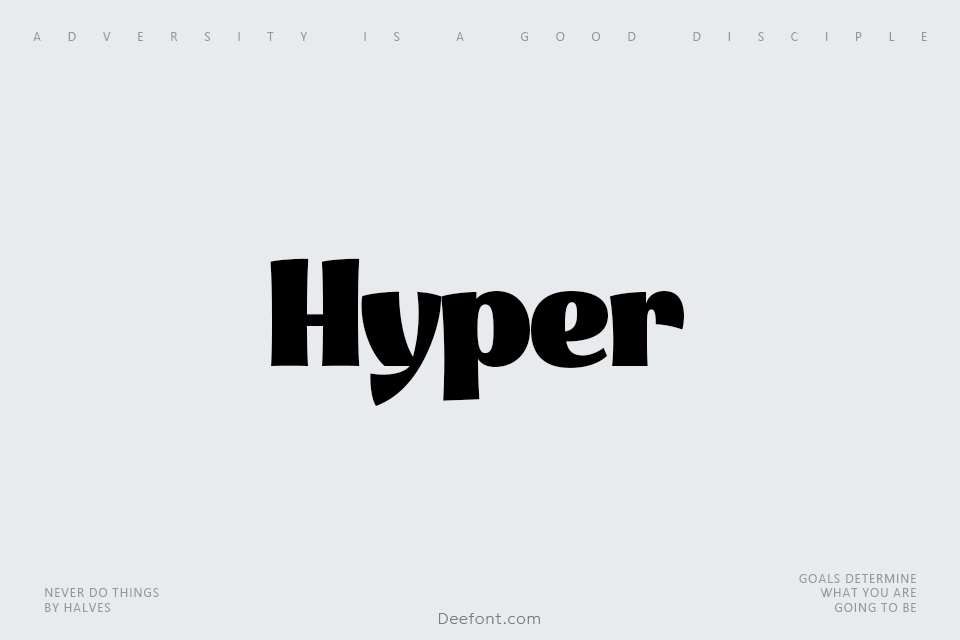
Hyper Font
Hyper is a modern sans serif typeface that reflects heavy and chunky wellness aesthetics with pleasant design elements. Designed by Anita Jürgeleit, this versatile font covers 90 Latin-based languages with 576 characters and includes special ligatures. Perfect for bold headlines, branding projects, and creative typography that demand visual impact and contemporary styling.